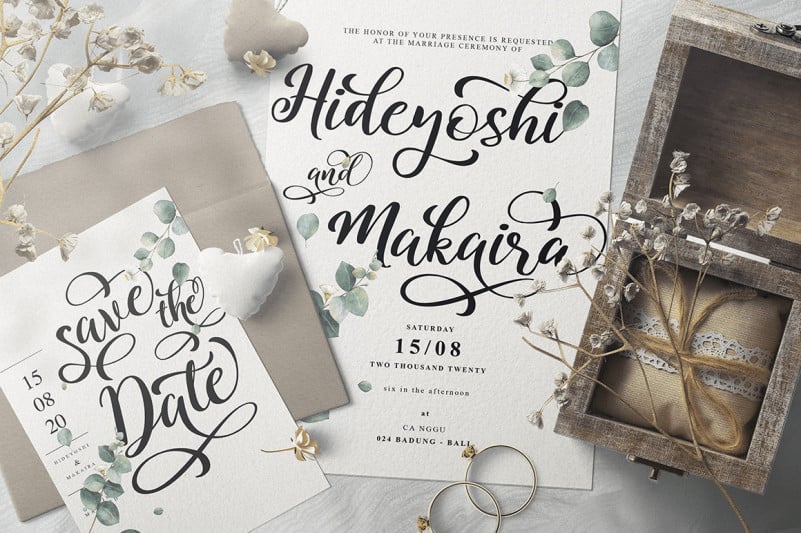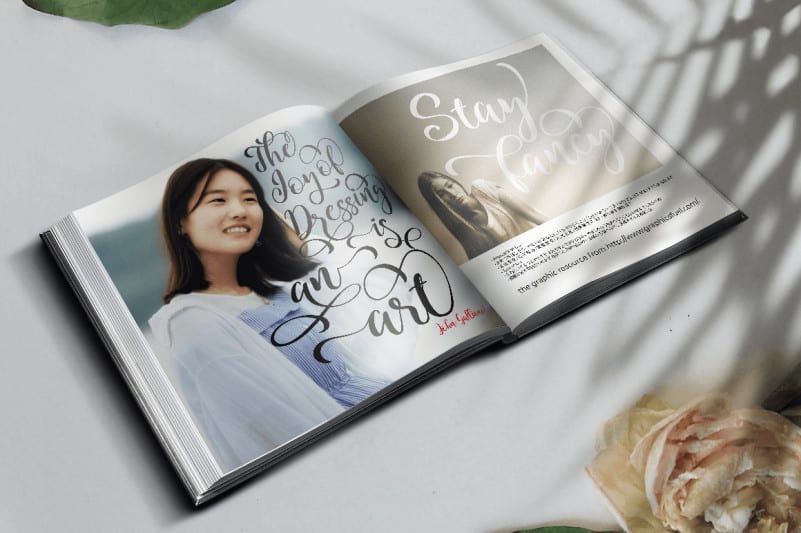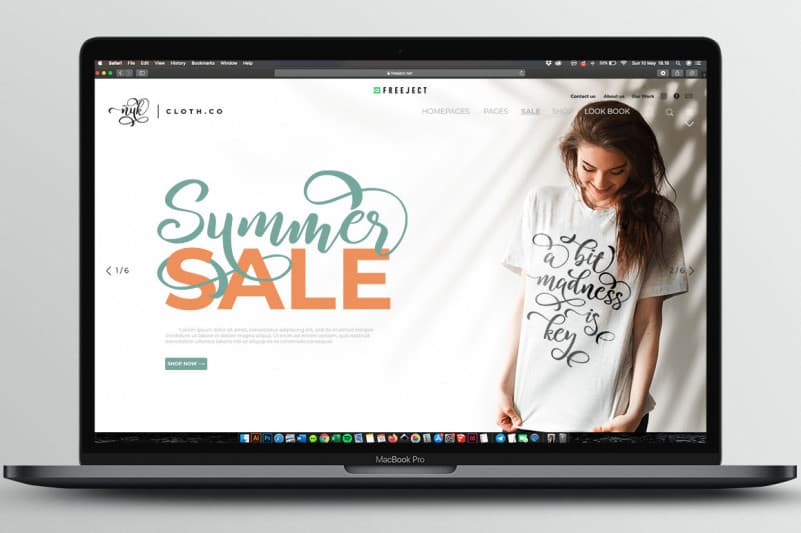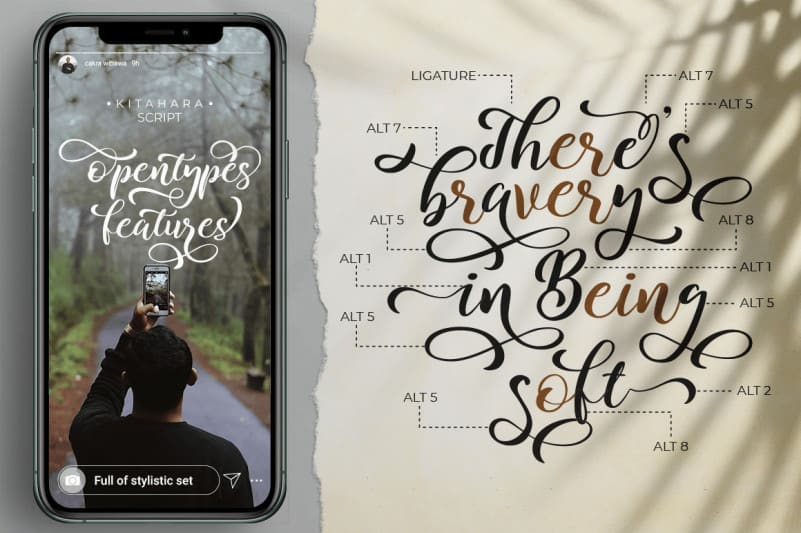
Kitahara Script Font
Kitahara – A Casual Script Font. A charming, unique, strikingly versatile font. Inspired by the beauty of Japanese culture. It’s allows you to create beautiful hand-made typography in an instant. Kitahara Script Font is suitable for use in many design forms and is guaranteed to make your text stand out. It can be used in magazines, postcards, logos, website, DIY Projects, invitation cards, Instagram stories, quotes, wedding projects, and much more. It’s provides a perfect balance of casual yet captivating lettering for your design projects.